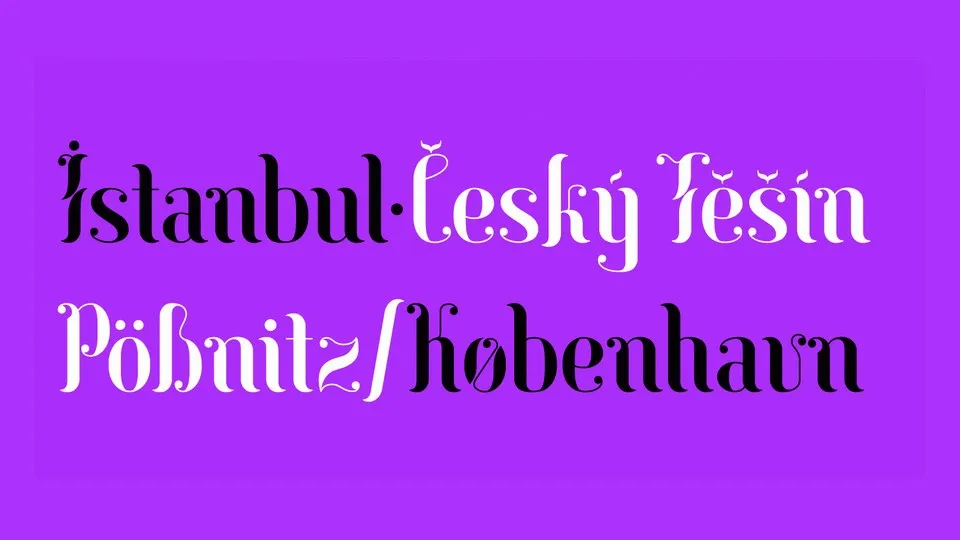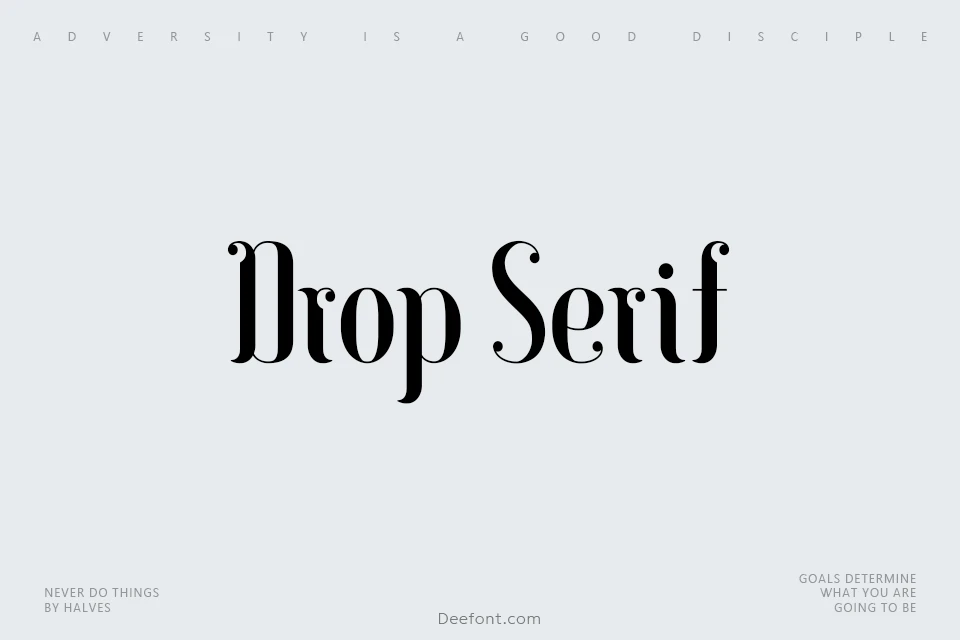
Drop Serif Font
Drop Serif Font is a modern and classy high-contrast serif typeface with a decorative flair, blending originality and organic forms. Designed for impactful headlines, magazine covers, posters, or packaging, it adds charm and elegance to any creative project. With its visually striking style and extensive character set, Drop Serif Font is perfect for designers seeking a unique and sophisticated look.